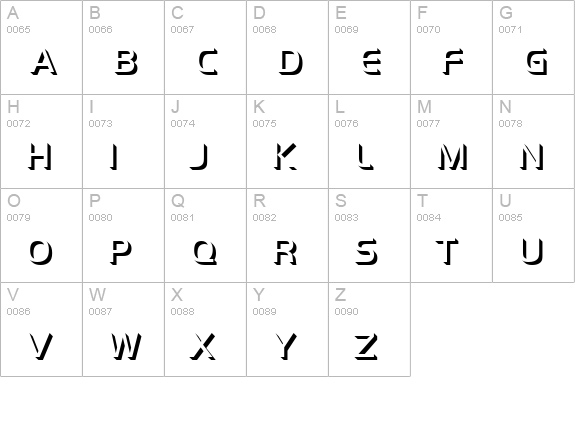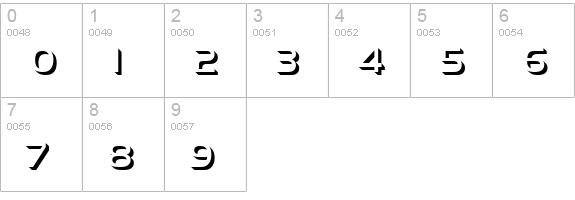
HandelGotOnlShaDLig Font Details
HandelGotOnlShaDLig font is a captivating and versatile typeface that brings a touch of elegance and modernity to any design project. With its unique combination of sharp angles and sleek curves, this font is perfect for adding a contemporary edge to logos, branding, posters, and more. What sets HandelGotOnlShaDLig font apart is its incredible versatility. Whether you're looking to create a bold and impactful headline or a refined and sophisticated body text, this font has you covered. Its balanced letterforms and generous spacing ensure legibility while maintaining a sense of style. HandelGotOnlShaDLig font is also free to download at FontsMarket.com, making it an accessible choice for designers and creatives of all levels. This means that you can effortlessly enhance your projects without breaking the bank. With just a few clicks, you can add this stunning font to your collection and take your designs to the next level. Designed with attention to detail, HandelGotOnlShaDLig font offers a wide range of weights and styles, allowing you to experiment and find the perfect fit for your project. Whether you're creating a sleek and minimalistic website or a vibrant and eye-catching poster, this font will effortlessly adapt to your needs. So why wait? Discover the endless possibilities that HandelGotOnlShaDLig font has to offer. Download it for free at FontsMarket.com and unlock a world of creativity. With its modern and sophisticated aesthetic, this font is sure to make a lasting impression on any project. Don't miss out on this opportunity to elevate your designs and captivate your audience. Start exploring the beauty of HandelGotOnlShaDLig font today.